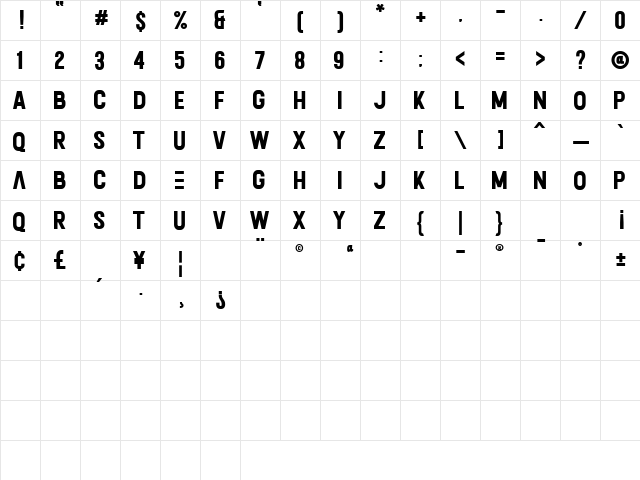
Calvier Bold
| Designer | MLKWSN 2018 |
Design Context for Calvier Typeface
Calvier is a composed and adaptable typeface that performs quietly and consistently across a wide range of design contexts. Its bold stroke weight gives it real presence on the page.